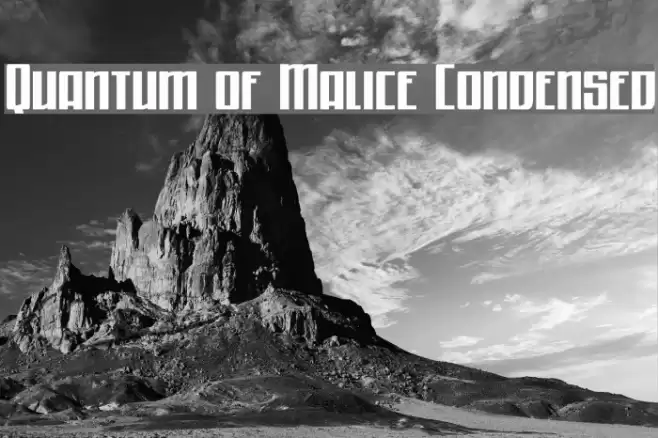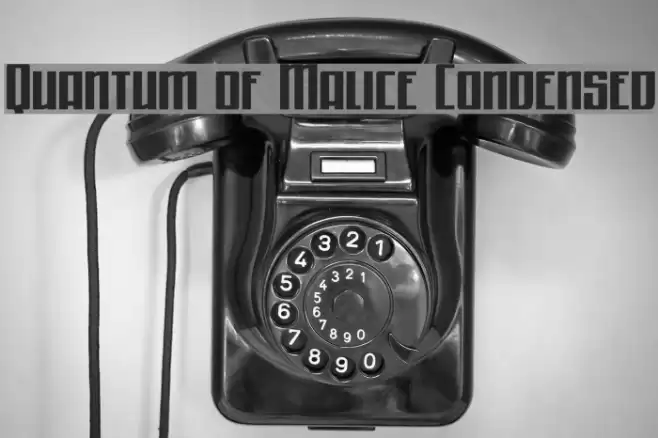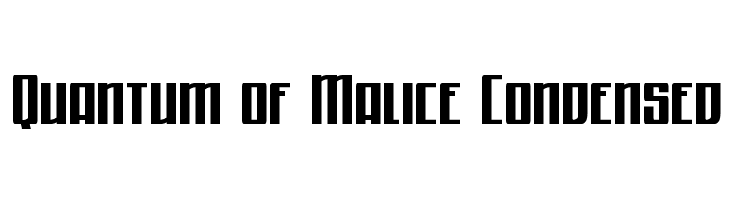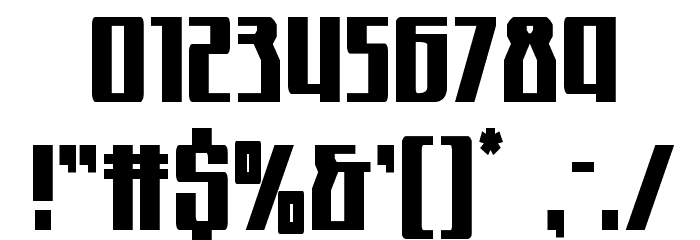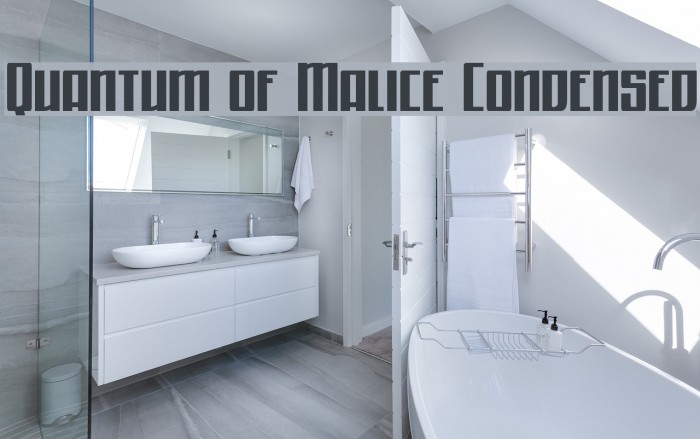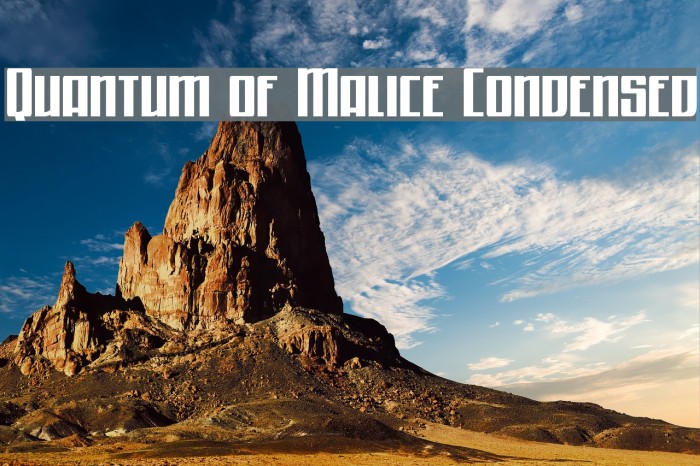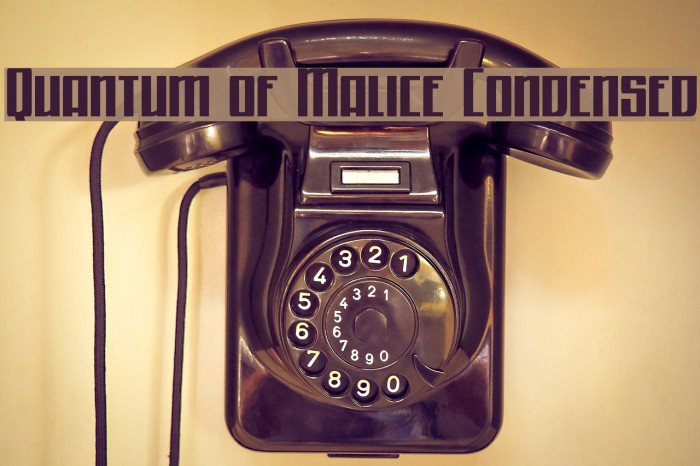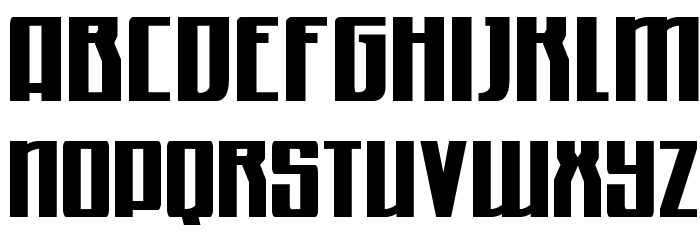
Quantum of Malice Condensed Font
Quantum of Malice Condensed Description
This font features a bold, condensed style with a strong geometric influence. The characters are tall and narrow, creating a striking and impactful appearance. The angular design elements give it a modern and edgy feel, while the consistent stroke width maintains a clean and uniform look. The uppercase letters are particularly prominent, with sharp edges and a futuristic aesthetic. The numbers and special characters follow the same design principles, ensuring a cohesive visual identity across all elements. This font is well-suited for projects that require a bold statement or a contemporary touch.
A bold, condensed font with a geometric and modern design from Uncategorized fonts.
- Proposed Projects: Ideal for headlines, posters, branding, and any design needing a bold, modern touch.
- Character Spacing: Tight